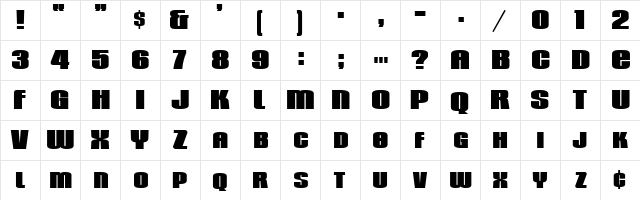
2 Banner Heavy DNA Regular
Design Context for 2 Banner Heavy DNA Typeface
2 Banner Heavy DNA offers clean, dependable letterforms without strong stylistic allegiance, making it a practical choice for designers who need flexibility.